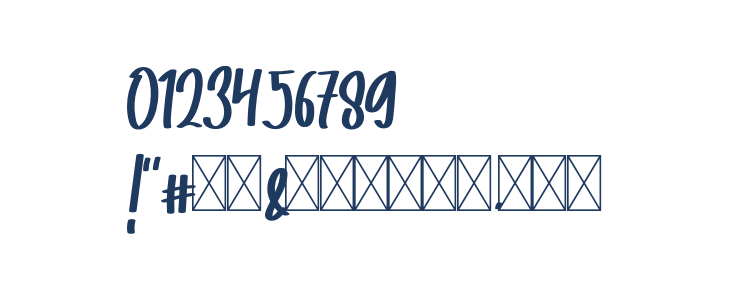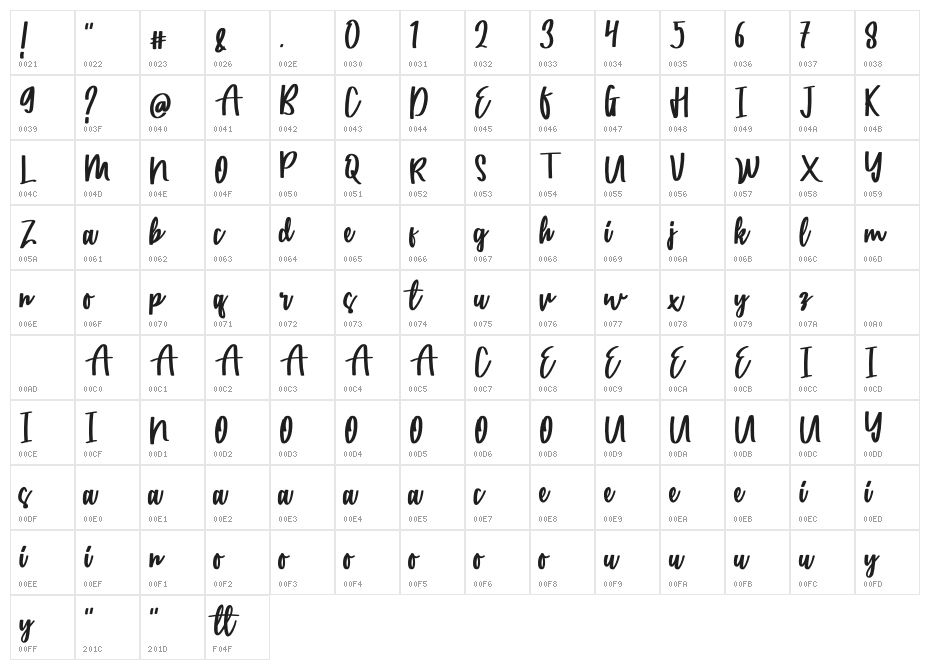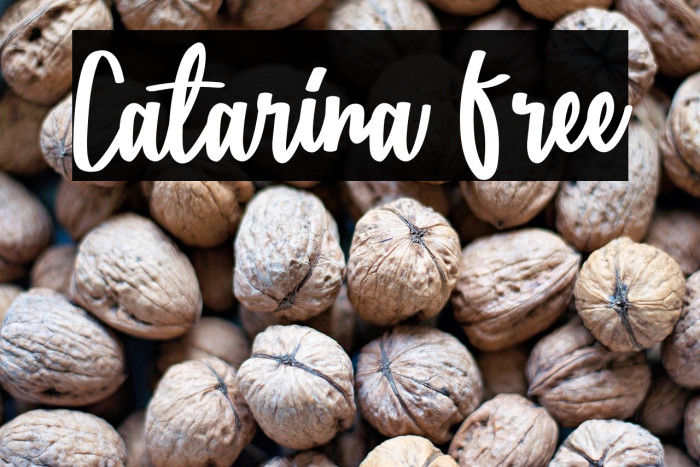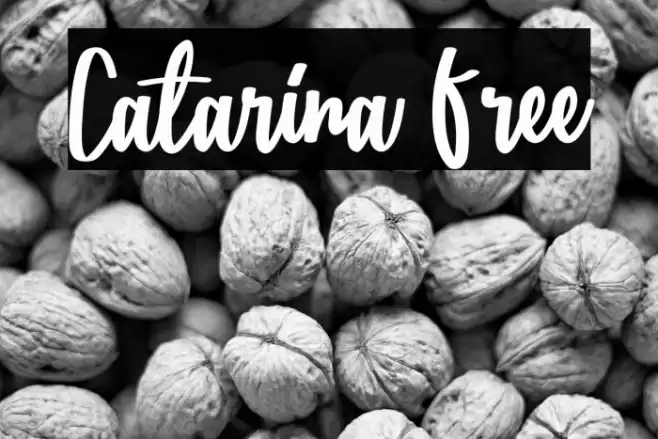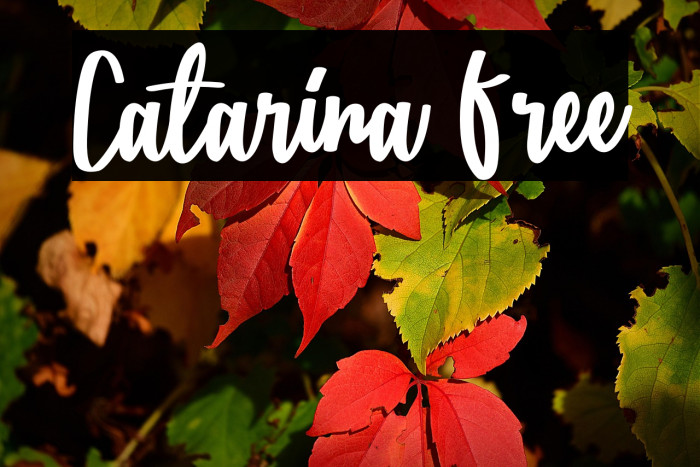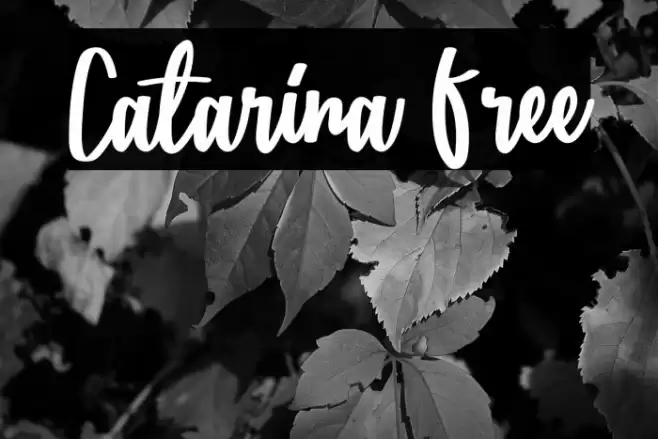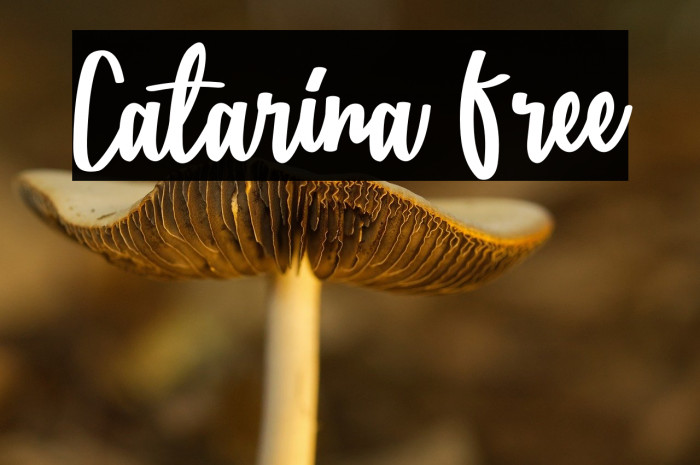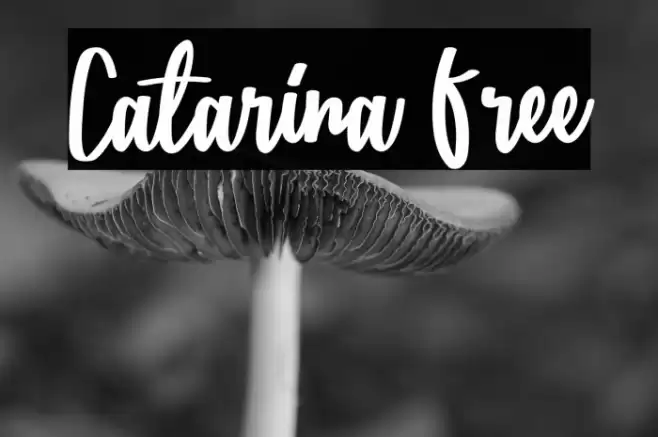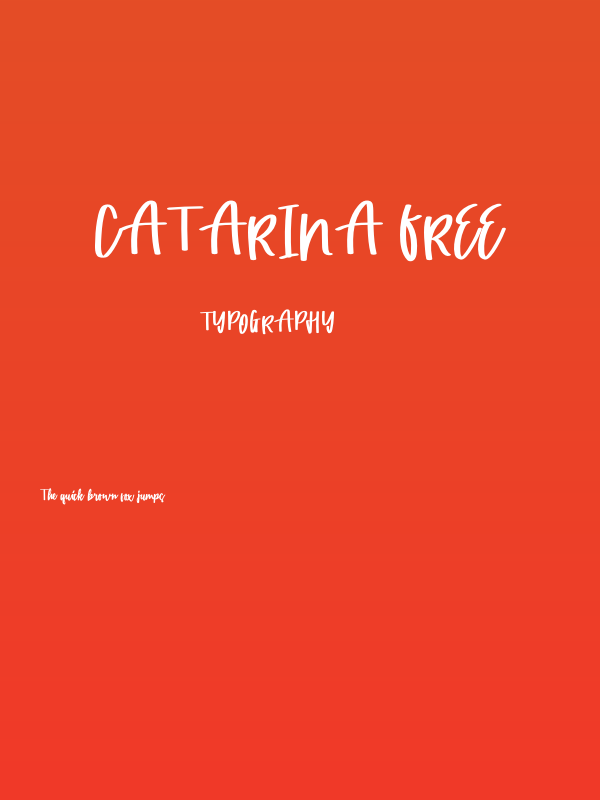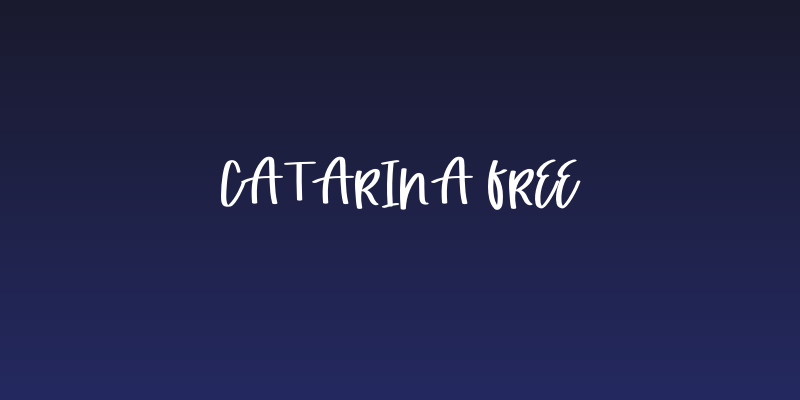
Catarina Free Font
Catarina Free Description
This font features a lively and dynamic handwritten style, characterized by its bold and flowing strokes. The uppercase letters are tall and slightly narrow, with a playful bounce that adds a sense of movement. The lowercase letters maintain a consistent rhythm, with rounded forms and smooth connections that enhance readability. Numbers are equally expressive, with a uniform height that aligns well with the text. Special characters are integrated seamlessly, maintaining the overall aesthetic. This font's energetic and informal style makes it suitable for creative and casual applications.
| Proposed Projects | Ideal for greeting cards, invitations, posters, and branding projects that require a personal touch. |